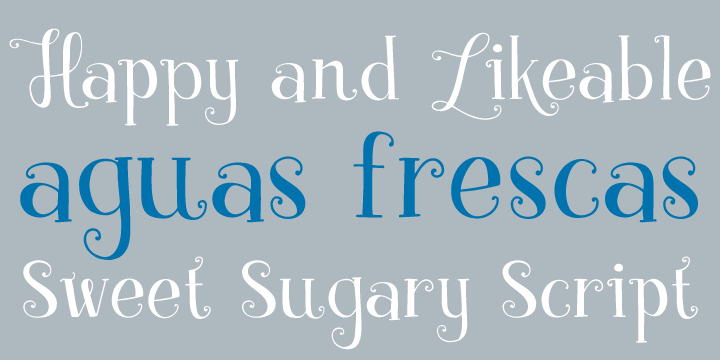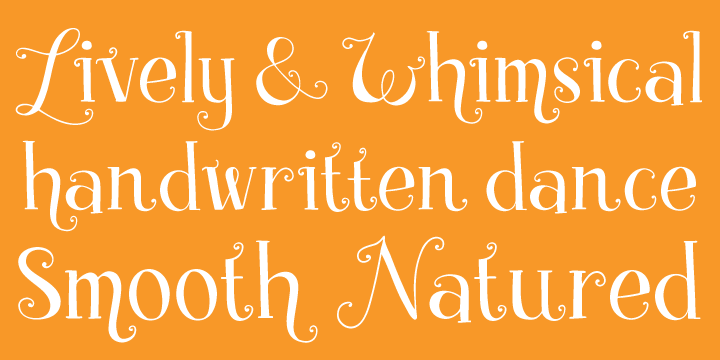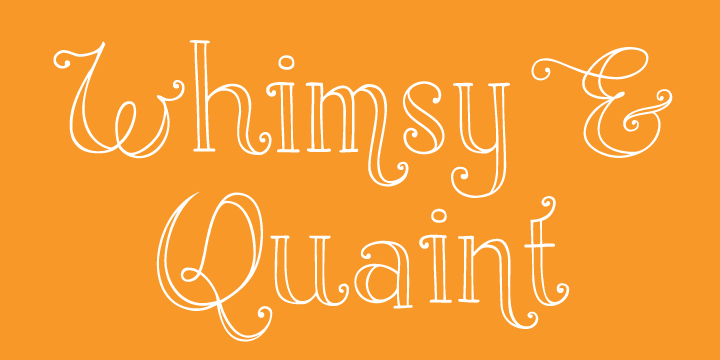
Carla Zetina-Yglesias
Carla Zetina-Yglesias is a graphic designer who can't pin-point her place of origin due to some serious globe-trotting since an early age. She graduated from Minneapolis College of Art & Design in May 2007, after previously attending Universidad Iberoamericana in Mexico City.
She currently resides in Minneapolis, MN.
Mix Zapf with Veljovic and get quirky Beziers.
Aguas Frescas Aguas Frescas